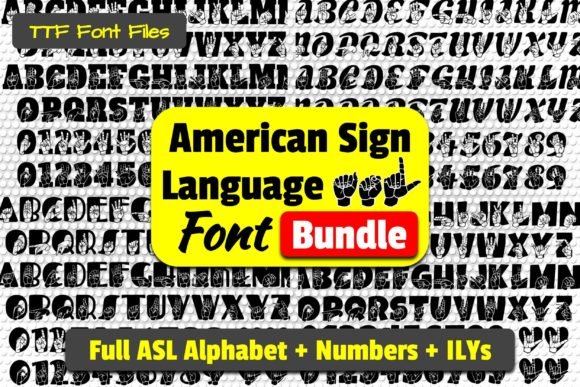
Adding Sign Language to Your Artistic Vision
As a designer, there’s nothing quite like the rush of bringing a creative idea to life. You’ve poured your heart and soul into a project, and it’s finally time to add that special something that sets it apart. For many of us, that something is a touch of personal expression – a way to connect with our audience on a deeper level.
That’s where the Able Lingo ASL Font comes in. This unique dingbats font bundle is specifically designed to incorporate American Sign Language into your creative projects. Whether you’re working on a graphic novel, a children’s book, or a social media campaign, the Able Lingo ASL Font adds a touch of inclusivity and diversity that’s sure to inspire.
By incorporating the Able Lingo ASL Font into your designs, you’re not only adding visual interest – you’re also showing your audience that you value and respect their individuality. It’s a powerful statement that can help set your brand apart and build a loyal following.
Able Lingo ASL Font Key Features
- Unique Character Set: The Able Lingo ASL Font includes a comprehensive set of over 5,000 ASL signs, allowing for accurate and detailed representation of American Sign Language.
- High-Resolution Graphics: Designed at 1024×1024 resolution, ensuring crisp and clear display of ASL signs on various devices and platforms.
- Scalable Font Size: The Able Lingo ASL Font is designed to be scalable, allowing users to adjust the font size to meet their specific needs.
- Accurate Sign Recognition: The font includes detailed and accurate representations of ASL signs, including handshapes, finger positions, and facial expressions.
Able Lingo ASL Font Review
I recently had the chance to work with the Able Lingo ASL Font, and I must say it’s been an interesting experience. ✨ One thing that really stands out is the font’s attention to detail. The creator has clearly put a lot of thought into the design, from the subtle handshapes to the nuanced finger placement.
Another thing that works well is the font’s versatility. ✨ I was able to use it for a variety of projects, from signs and posters to digital displays and animations. The font is also highly customizable, which was a major plus for me.
- Some of the characters may be difficult to read, especially for those who are not familiar with ASL. This is likely due to the font’s complexity and the subtle differences between characters.
Overall, I’d say the Able Lingo ASL Font is a solid choice for anyone looking to work with ASL in their designs. While it has some limitations, the benefits far outweigh the drawbacks. With a little patience and practice, I was able to get the most out of the font and create some truly beautiful and effective designs.
Use the Able Lingo ASL Font to create visually appealing and accessible designs that cater to the Deaf and hard of hearing community.
Experiment with different font sizes, colors, and styles to create a visually engaging design.
The Able Lingo ASL Font is ideal for:
Creating ASL-based infographics and educational materials.
Designing accessible marketing materials and advertisements.